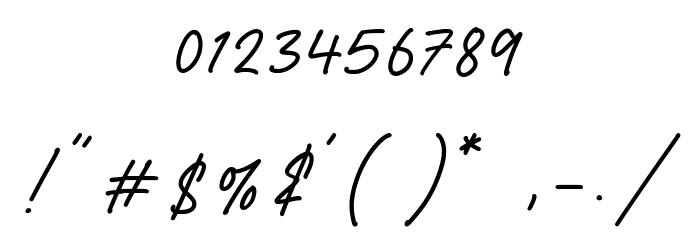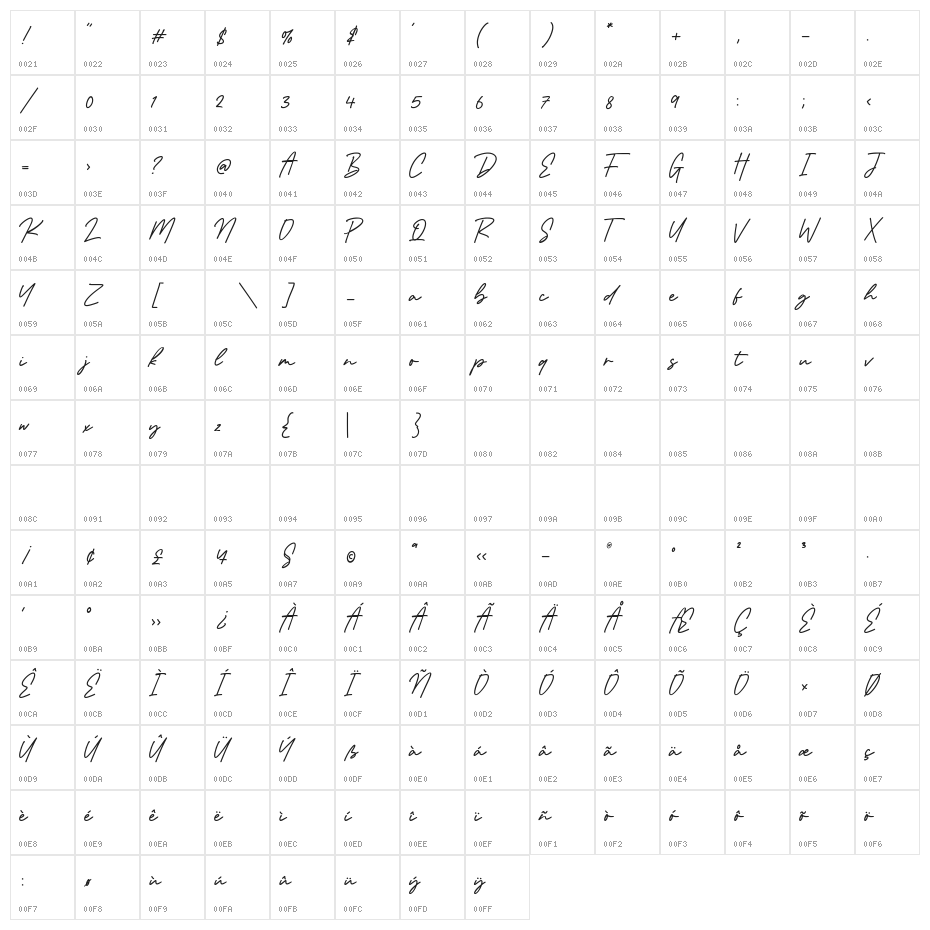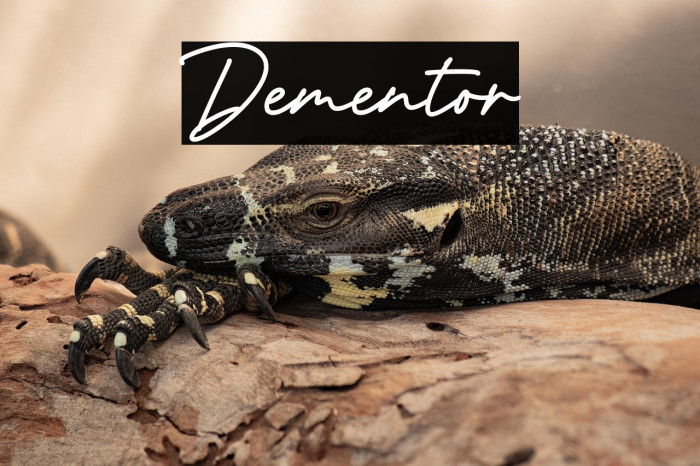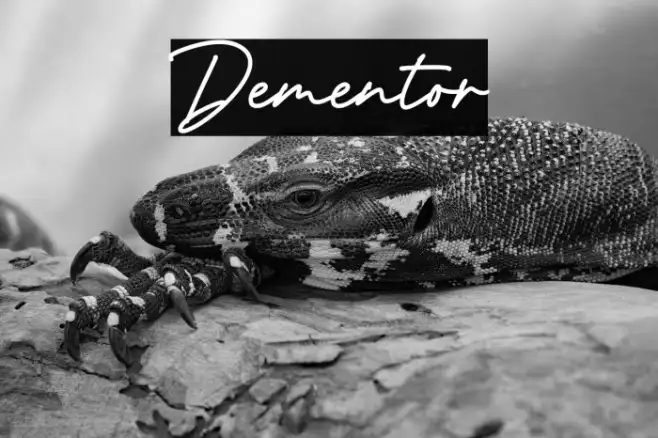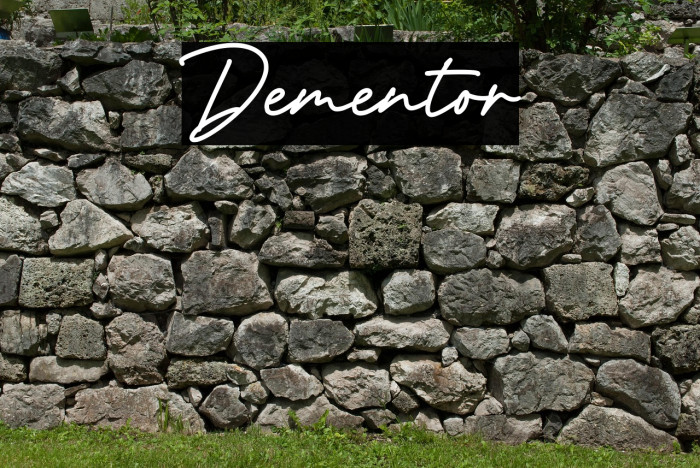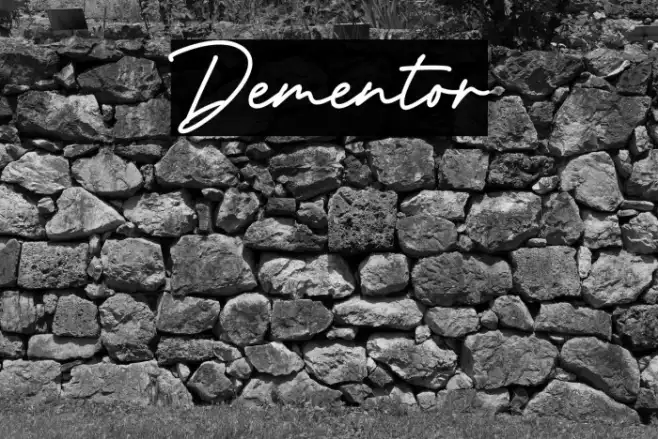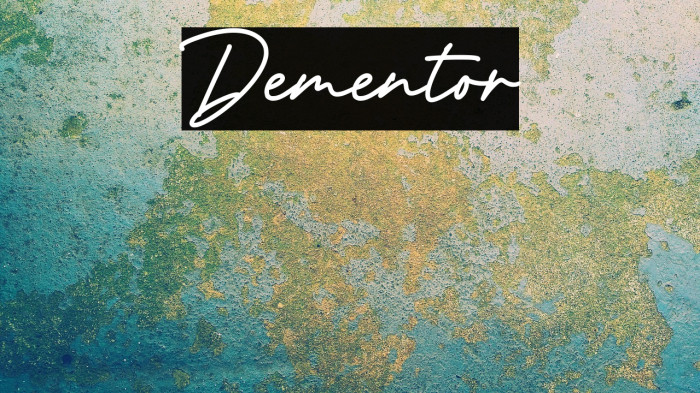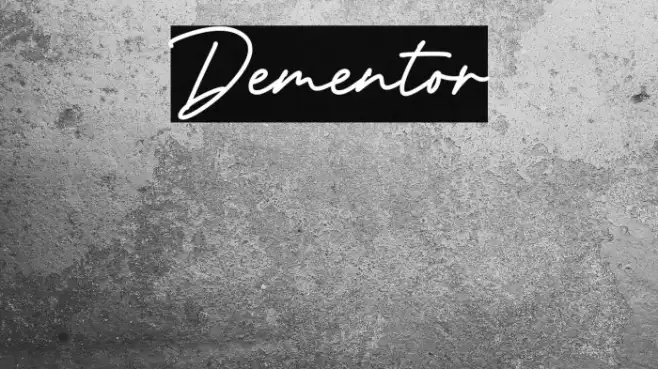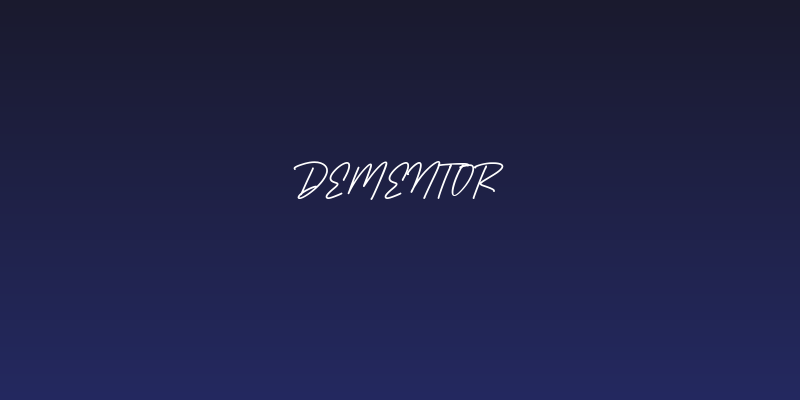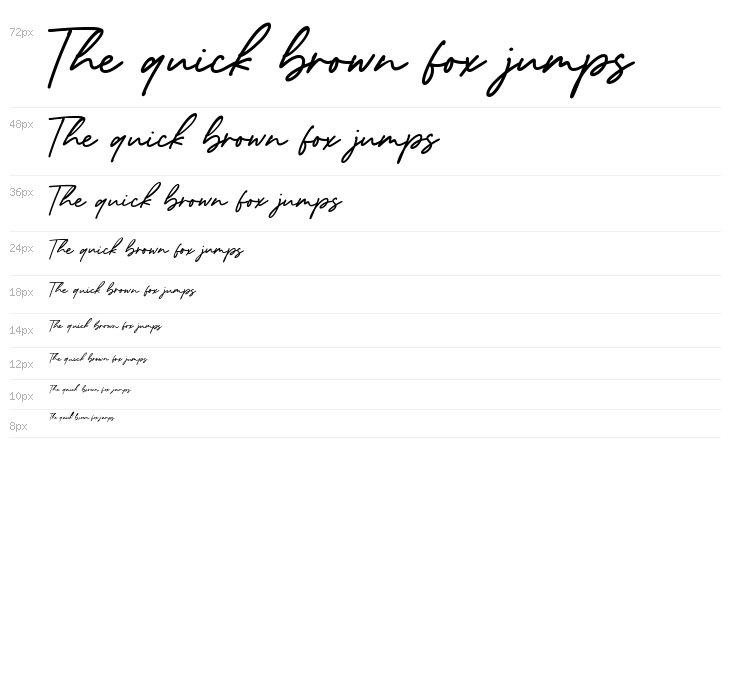
Dementor Font
This font features a dynamic and fluid script style, characterized by its elegant, flowing lines and smooth curves. The uppercase letters are tall and slightly slanted, giving a sense of motion and grace. The lowercase letters maintain a consistent style, with some letters connecting seamlessly to the next, enhancing the cursive aesthetic. Numbers and special characters are crafted with the same attention to detail, ensuring a cohesive look across all elements. The overall appearance is both sophisticated and approachable, making it suitable for a variety of creative applications.
| Overall Style | Elegant, Modern |
| Proposed Projects | Ideal for wedding invitations, greeting cards, branding projects, and elegant logo designs. |